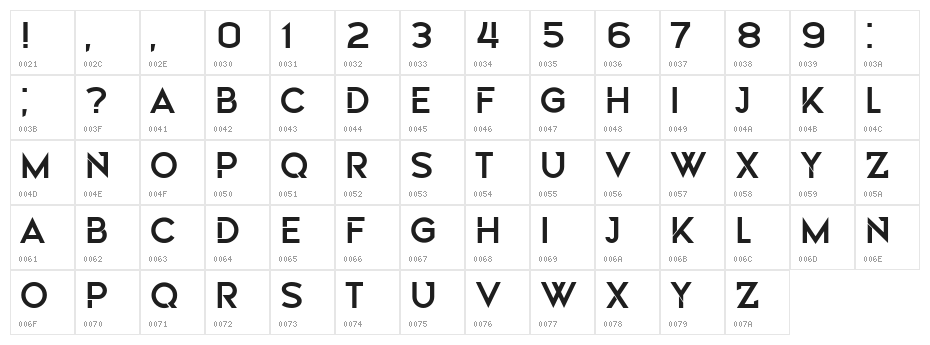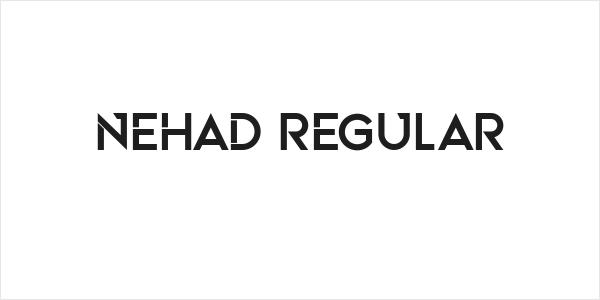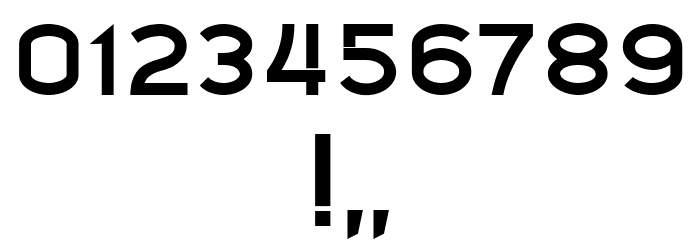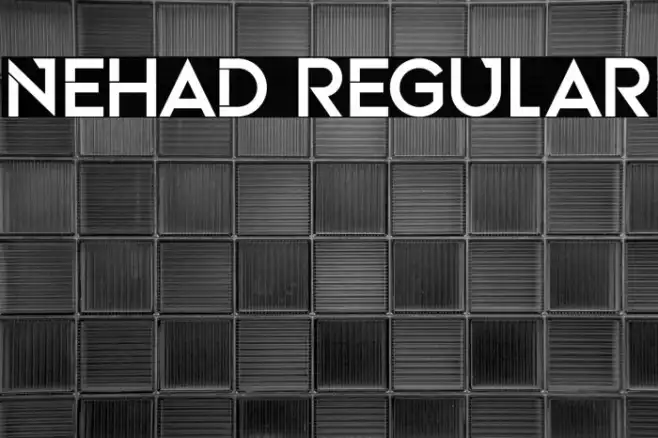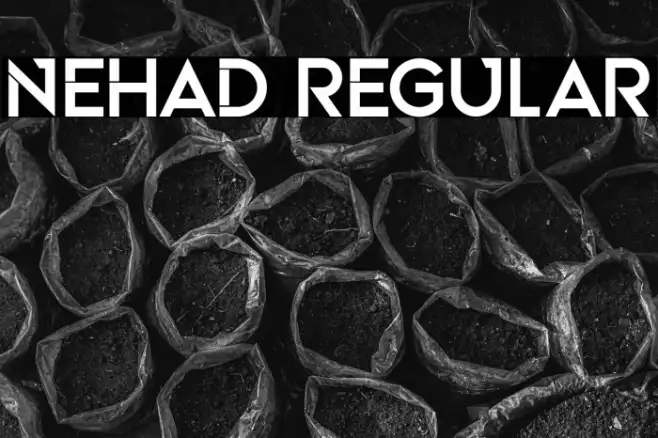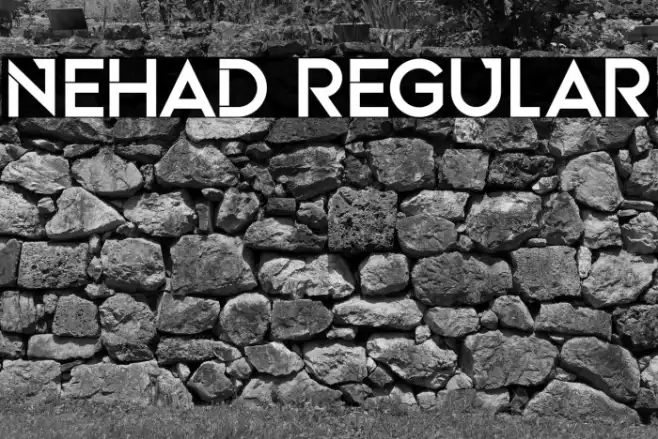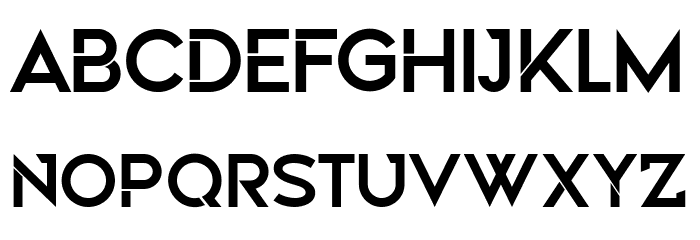
Nehad Regular Font
Nehad Regular Description
This font features a bold and geometric sans-serif style, characterized by clean lines and a modern aesthetic. The uppercase letters are uniform in height, with sharp angles and a consistent stroke width that conveys a sense of stability and strength. The numerals are equally bold, maintaining the geometric theme with rounded edges that complement the overall design. Special characters are minimalistic, fitting seamlessly with the alphabetic characters. This font is versatile, suitable for various design applications where a contemporary and assertive look is desired.
NEHAD-REGULAR UPPERCASE
NEHAD-REGULAR LOWERCASE
NEHAD-REGULAR OTHER CHARS
| Proposed Projects | Ideal for branding, headlines, posters, and digital media where a strong, modern presence is required. |